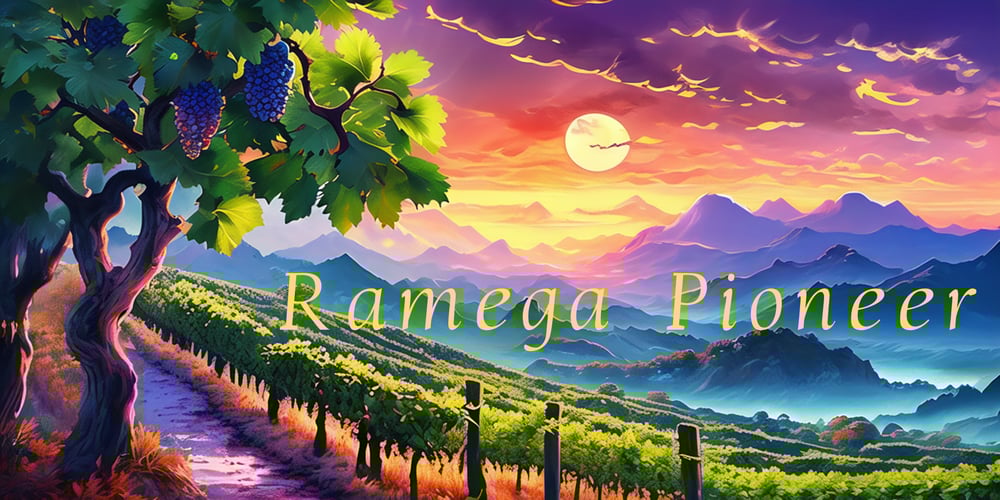
Ramega Pioneer Font Family was designed by Apollo Zhang and published by Ramega. Ramega Pioneer contains 1 styles and family package options. Introducing “Ramega Pioneer,” a new English typeface that effortlessly combines the structure of a serif font with the charm and personality of handwritten styles. This unique font is distinguished by its beautifully crafted curves, and notable for the variations in stroke weight, adding a touch of dynamism to any project it is applied to.Every character in “Ramega Pioneer” tells a story, their curves capturing the fluidity of a moving hand scribbling on paper, their serifs adding a classical touch. The well-defined edges at every turn highlight the font’s individuality, making it truly stand out.What’s special about “Ramega Pioneer” is not just how it looks, but also how it feels. Despite its distinct personality, it still manages to maintain a sense of familiarity, allowing readers to connect with it on a deeper level. This makes the font an excellent choice for a wide range of applications—from book covers and branding, to marketing materials and screen displays.In essence, “Ramega Pioneer” is more than just a typeface. It’s a stylistic statement that challenges the norms, a font for the bold and adventurous, while maintaining sophistication. Welcoming the unfamiliar with a nod to tradition, “Ramega Pioneer” is truly a font for the pioneers – those eager to lead, not follow.